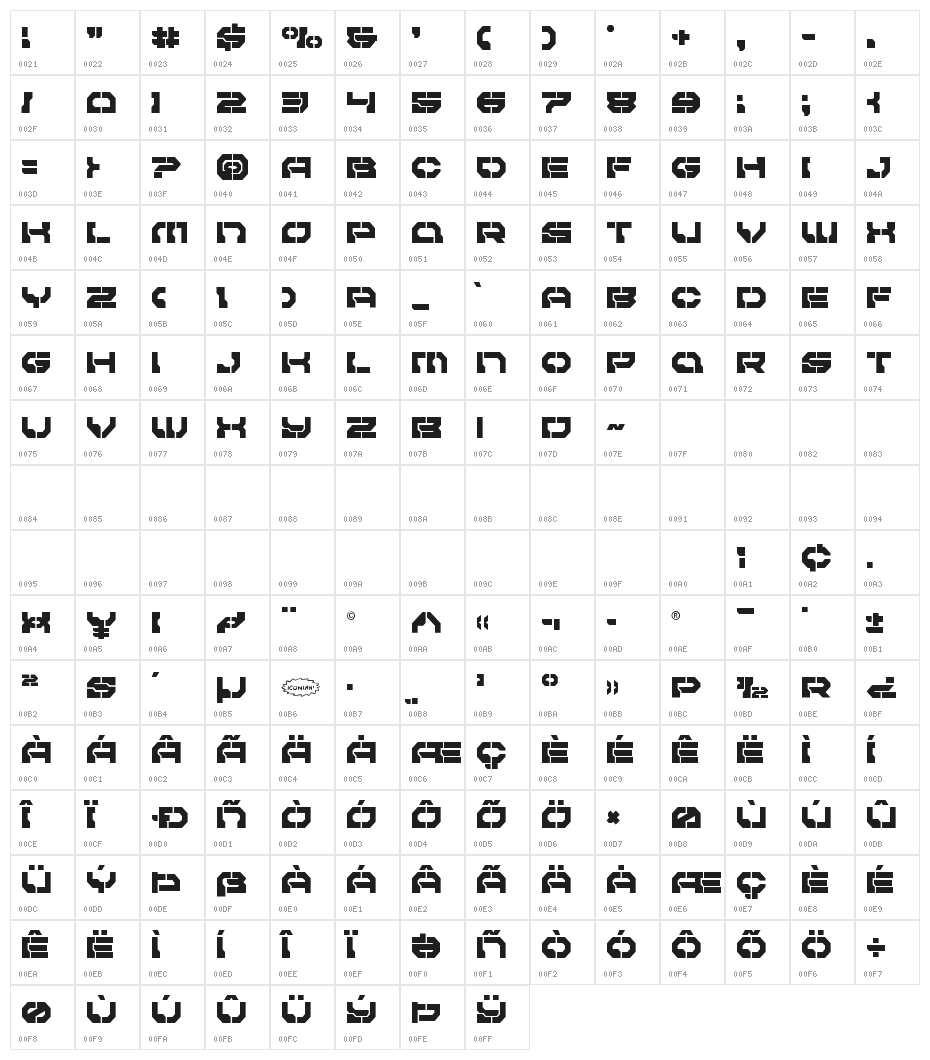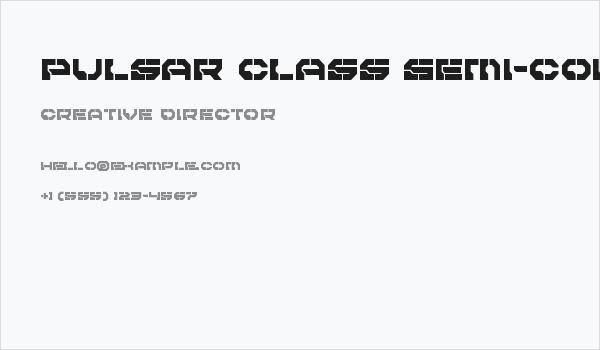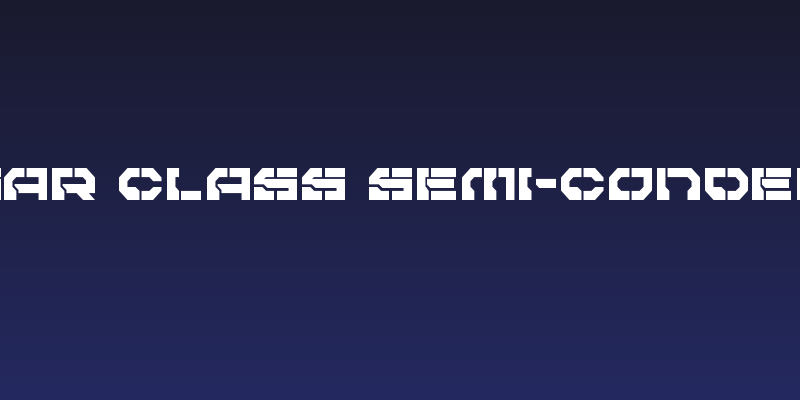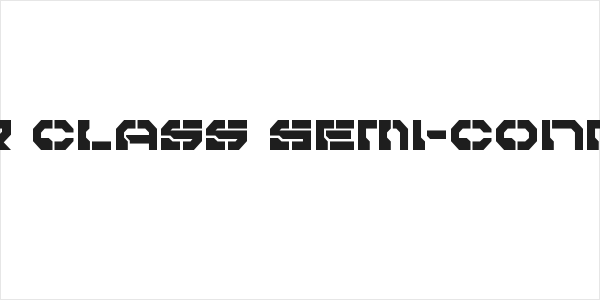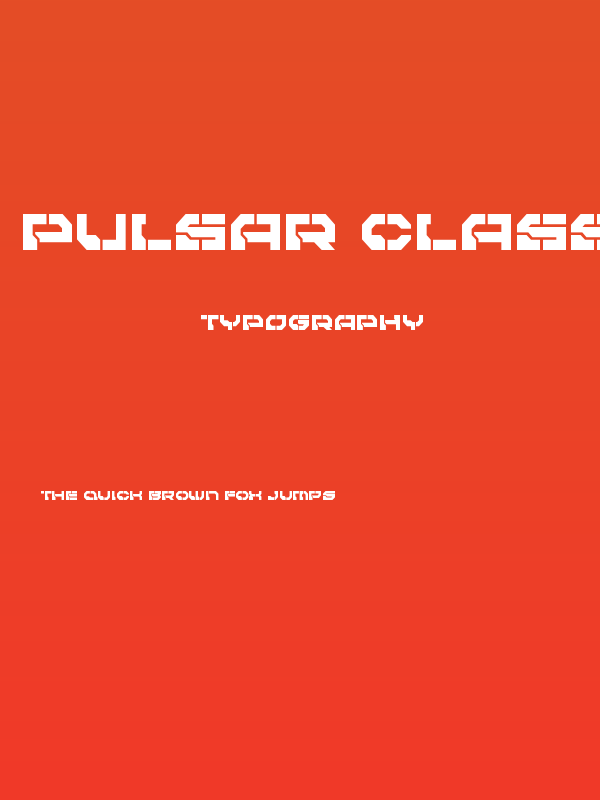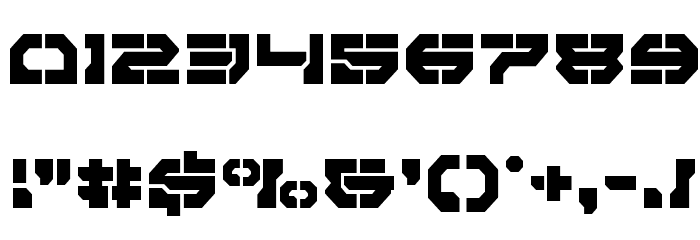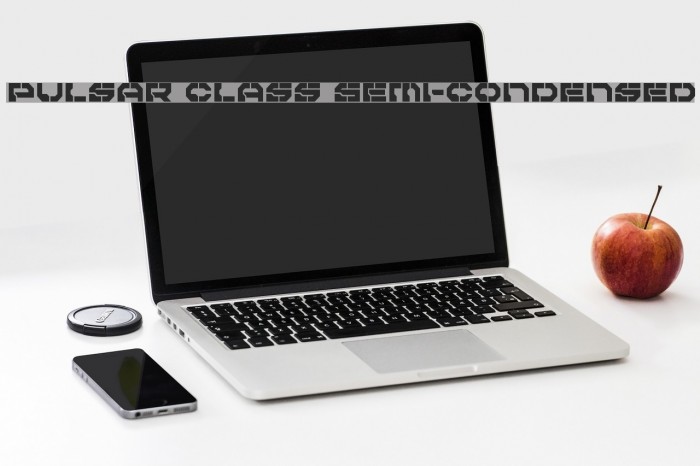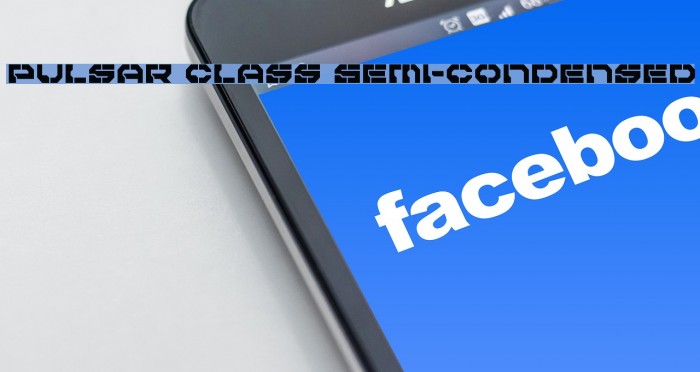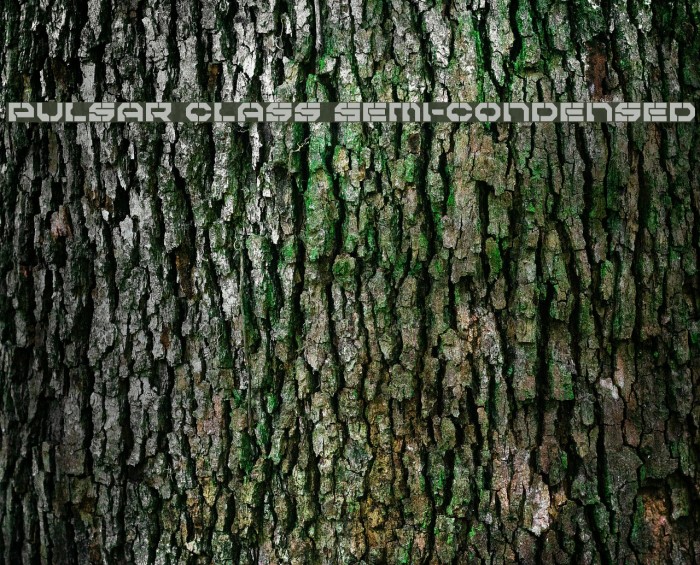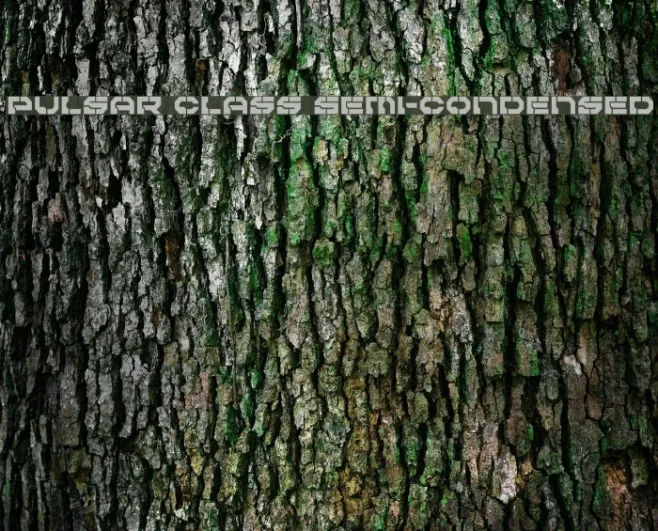
Pulsar Class Semi-Condensed Font
Pulsar Class Semi-Condensed Description
This font features a bold, geometric design with a futuristic and industrial feel. The characters are constructed with sharp angles and straight lines, creating a sense of precision and modernity. The semi-condensed width allows for efficient use of space while maintaining readability. The uppercase and lowercase letters share a consistent style, enhancing the uniformity of the text. The numerals and special characters are designed to match the overall aesthetic, making this font suitable for a variety of applications where a strong, impactful presence is desired.
| Overall Style | Futuristic, Industrial |
| Proposed Projects | Ideal for technology branding, sci-fi themed projects, video game interfaces, and modern poster designs. |